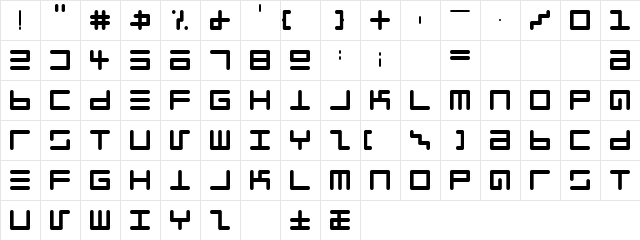
Eppy Evans Round Regular
Design Context for Eppy Evans Round Typeface
Eppy Evans Round softens its letterforms with rounded terminals, giving it an approachable, friendly quality that works well in consumer-facing and digital contexts.
Well-suited to UI design, mobile interfaces, and any brand that wants approachability without sacrificing clarity.
Font Pairing: Pairs well with a rounded or humanist sans for body copy, maintaining the friendly tone without relying on Eppy Evans Round to carry extended reading.
Pro Tip: Use Eppy Evans Round for UI elements, app interfaces, and anywhere a friendly, approachable tone needs to be maintained without sacrificing clarity.